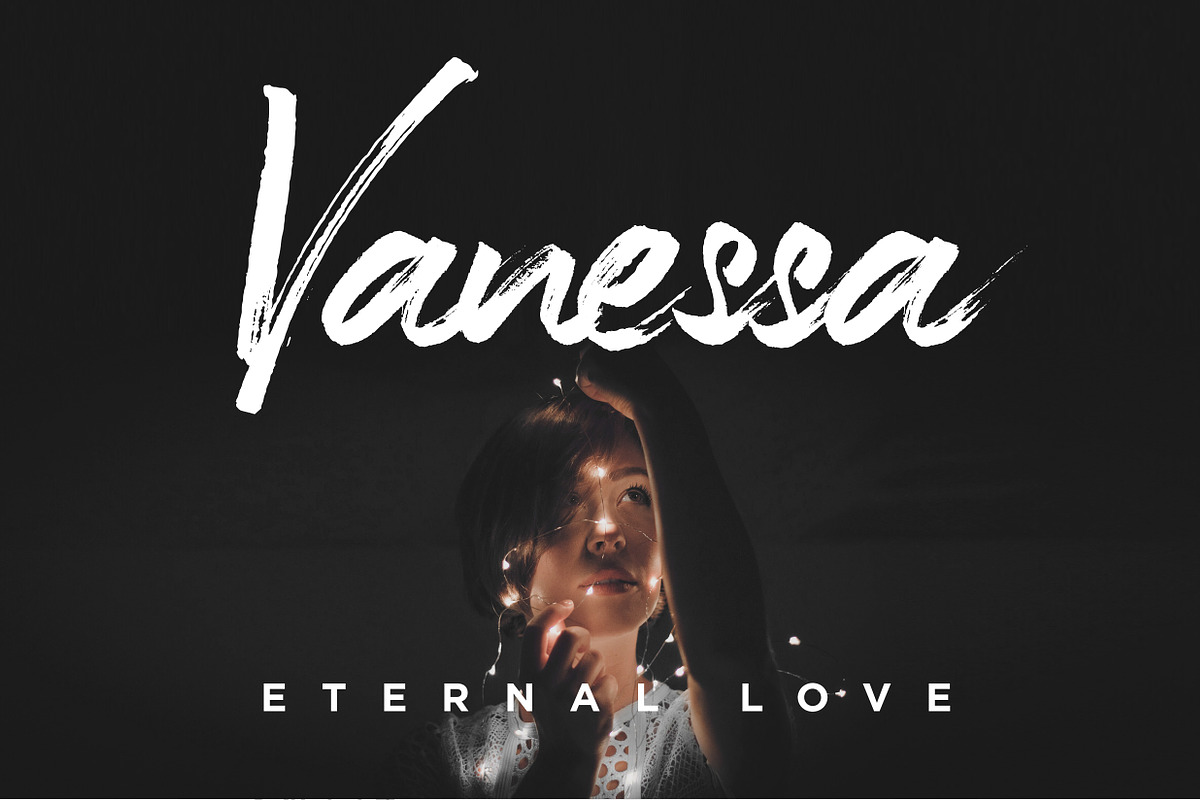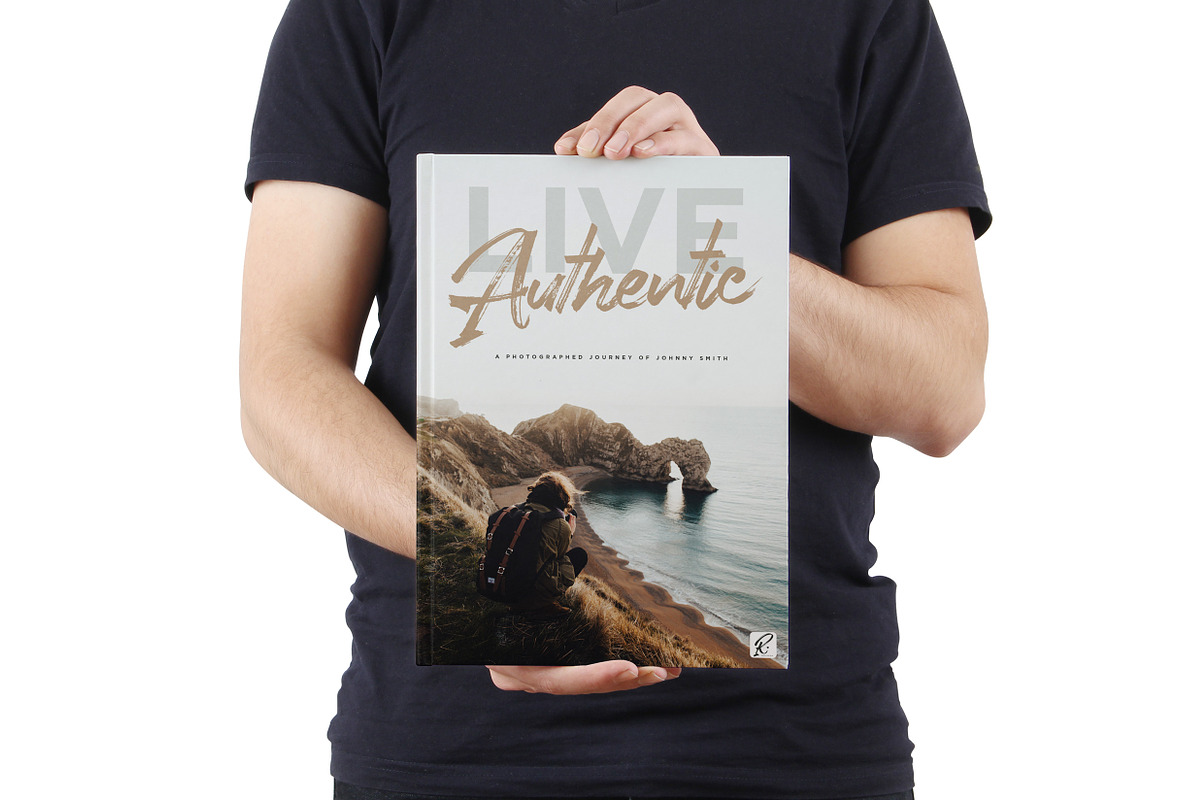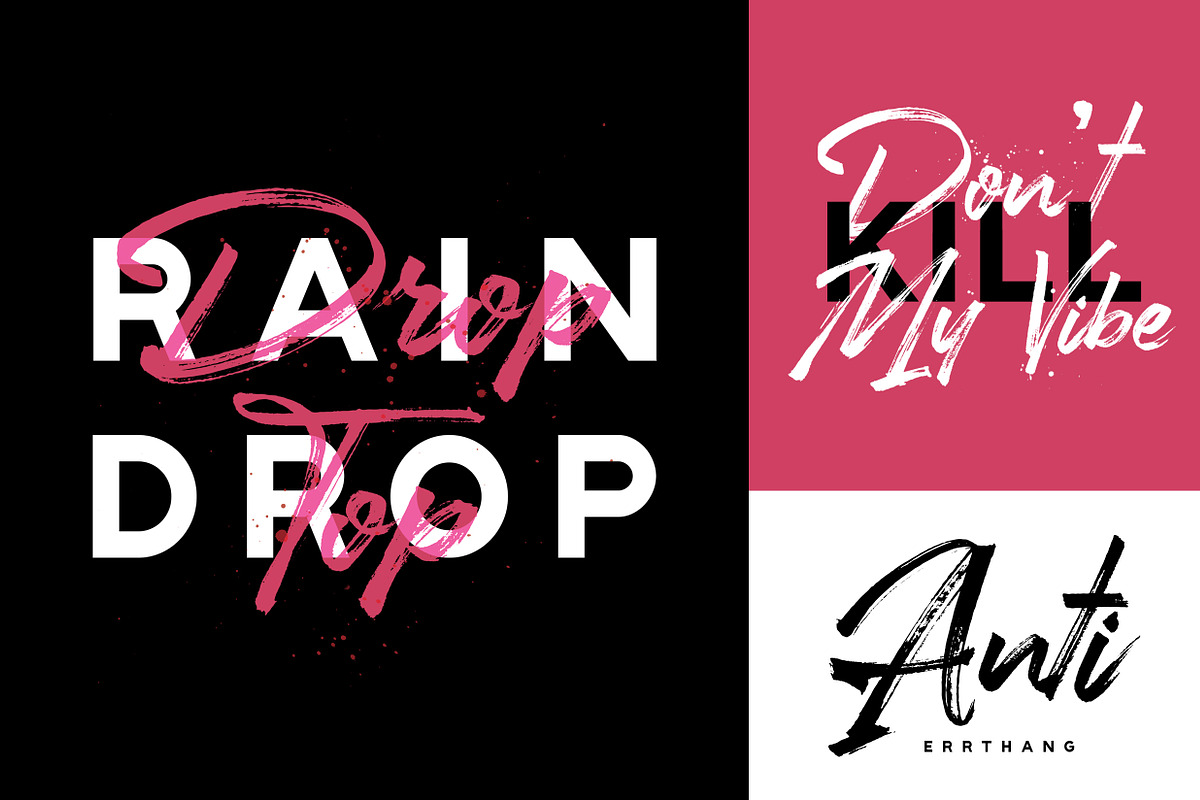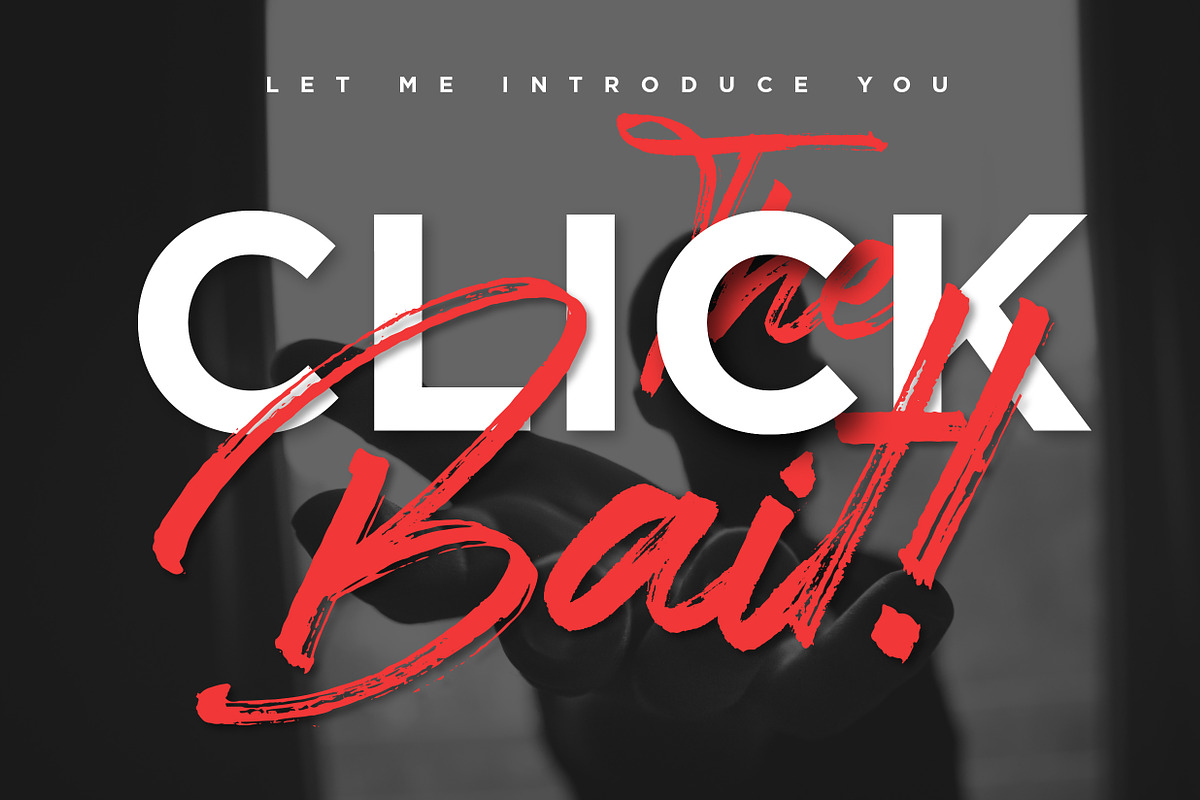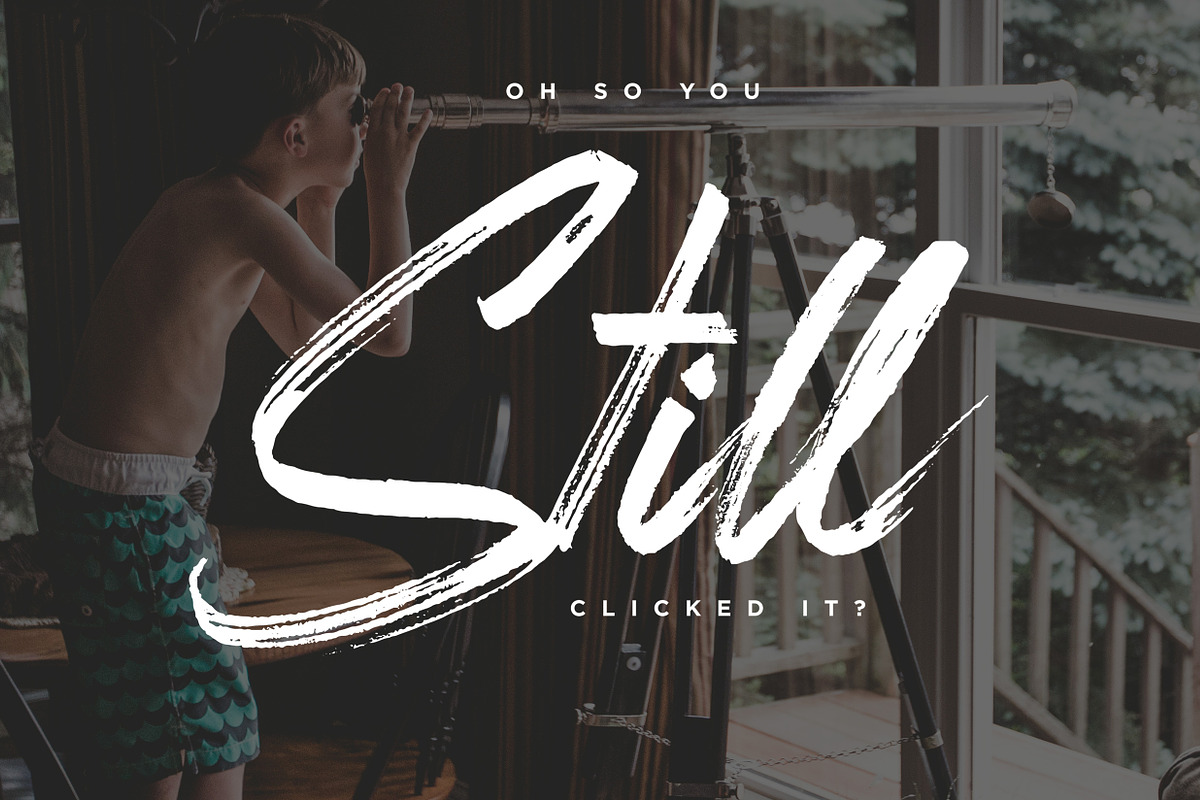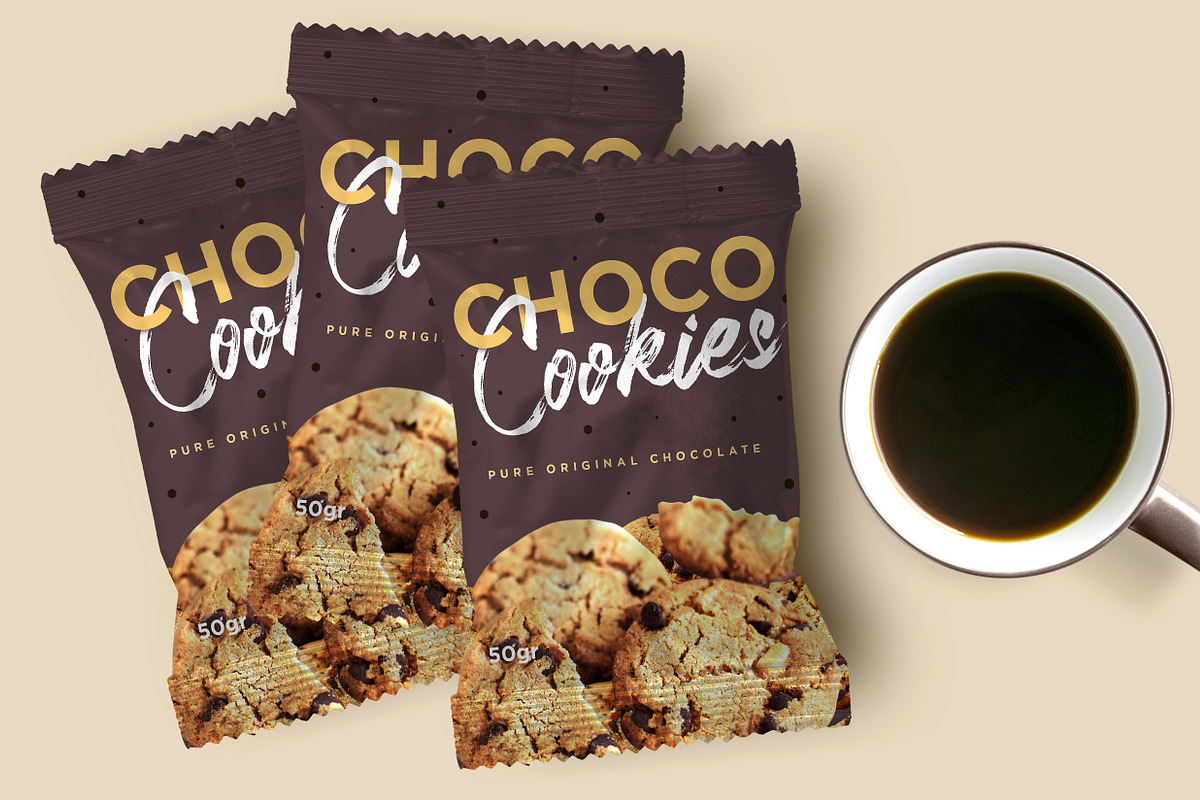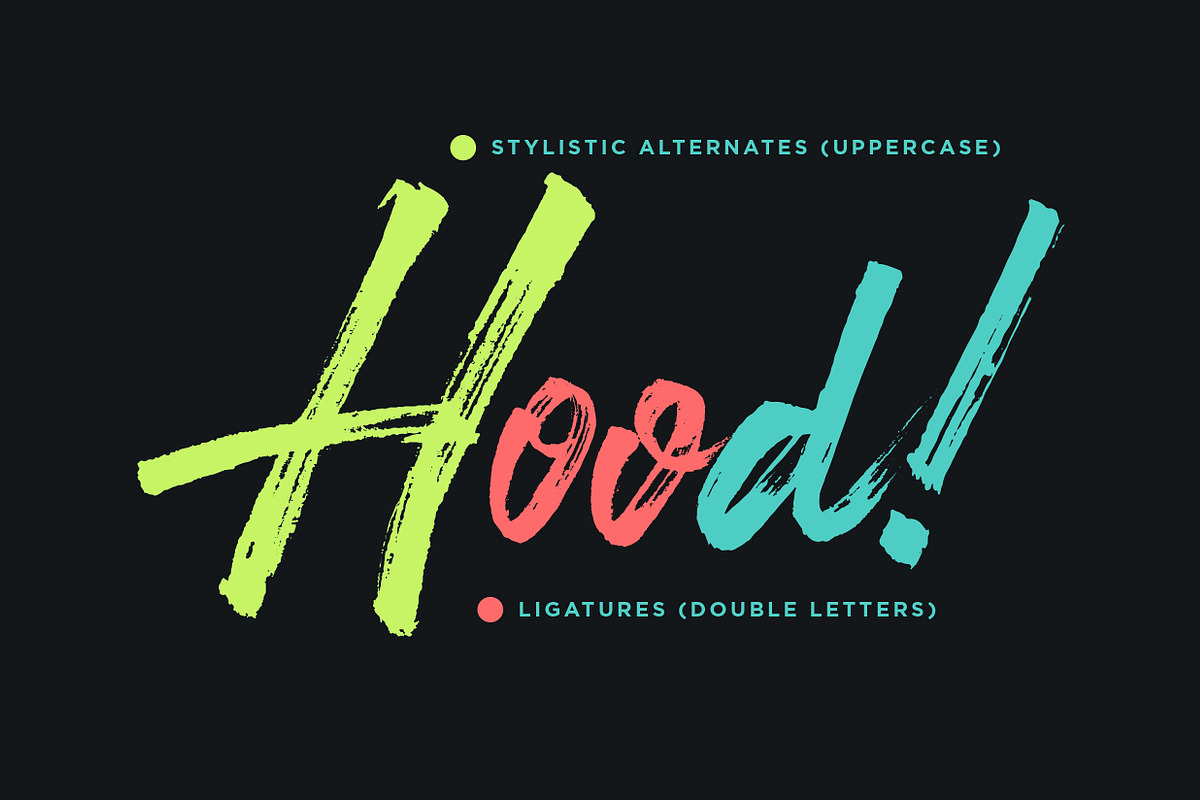
Clickbait - Logo Font
Clickbait - Logo Font by Ian Irwanwismoyo is a font selected for branding, posters, packaging, typography.
- Comes up with Uppercase stylistic alternates, double-letters ligatures (to get the feel of real handwriting) and some international language
Why Clickbait - Logo Font is worth a look
Clickbait - Logo Font by Ian Irwanwismoyo fits naturally into Branding, posters, packaging, typography.